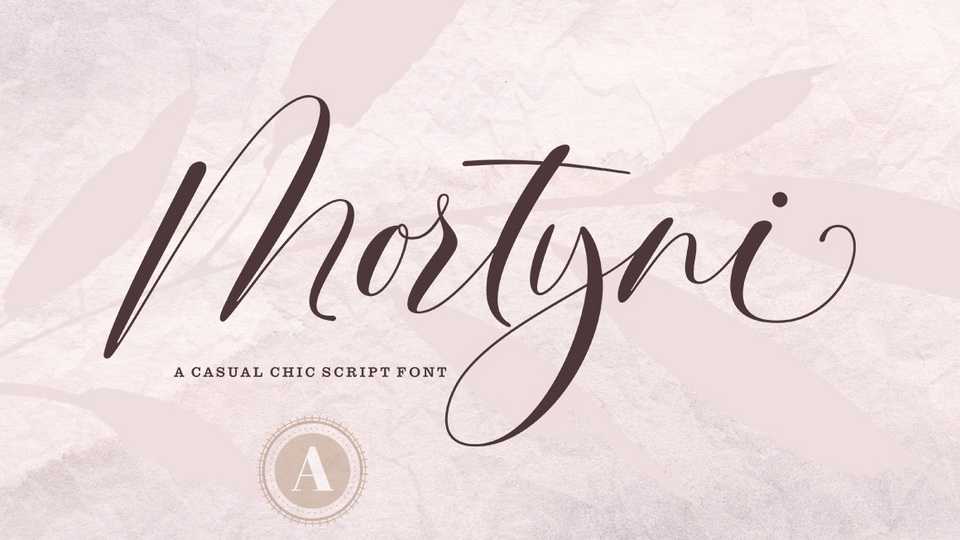
Download Mortyni font, a unique and playful calligraphy script with a modern vibe. Mortyni font will inspire your next project by its authentic charm!